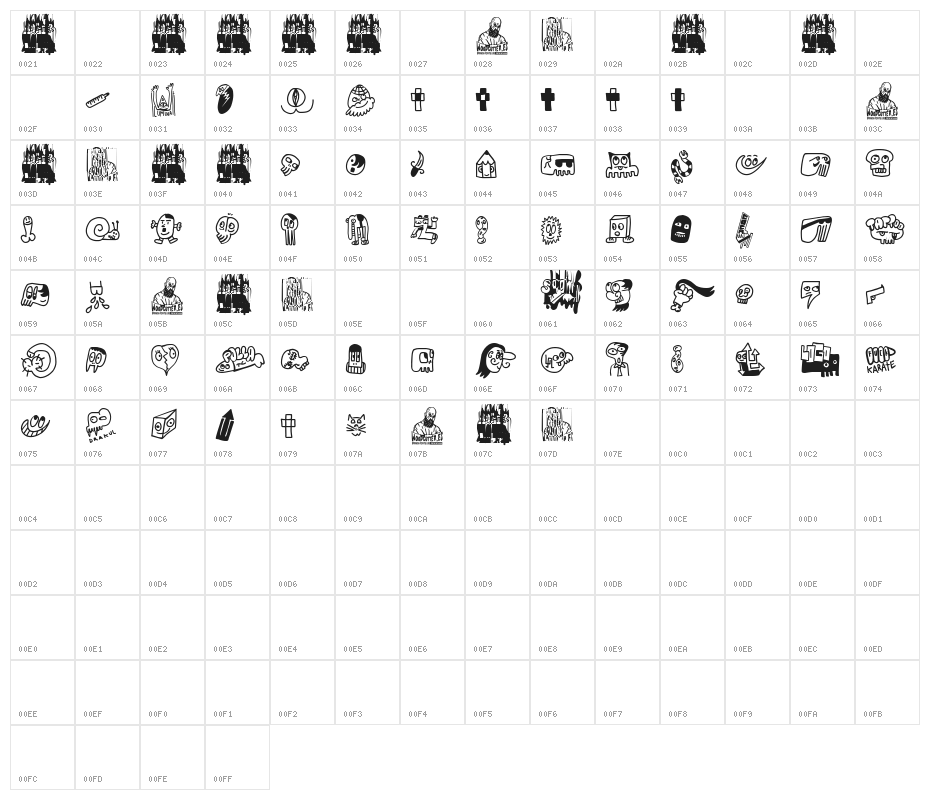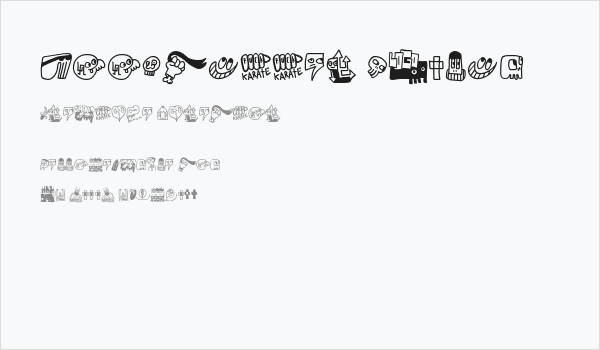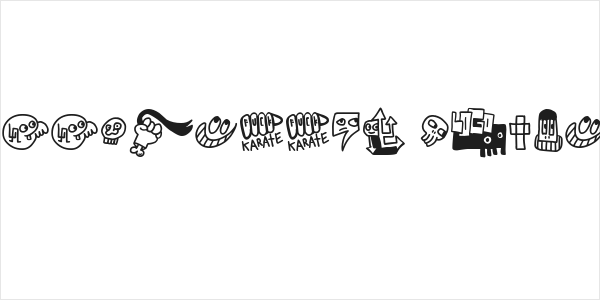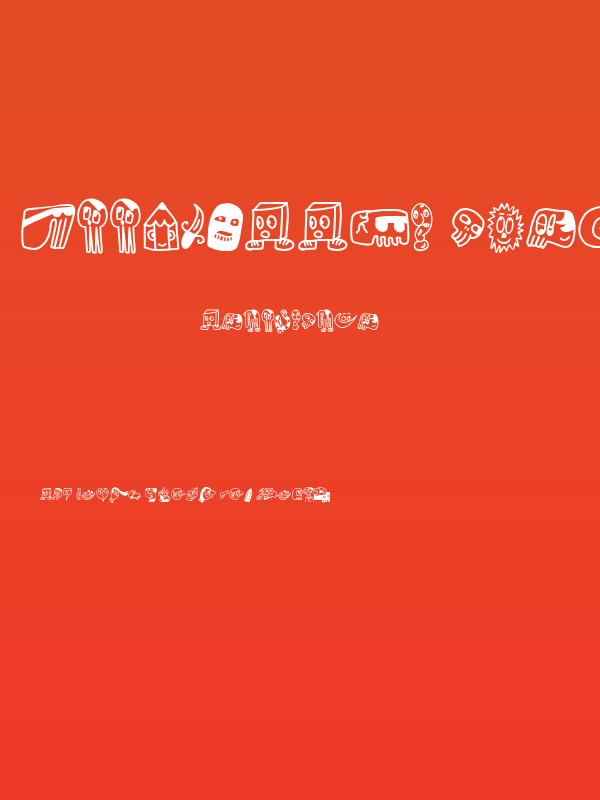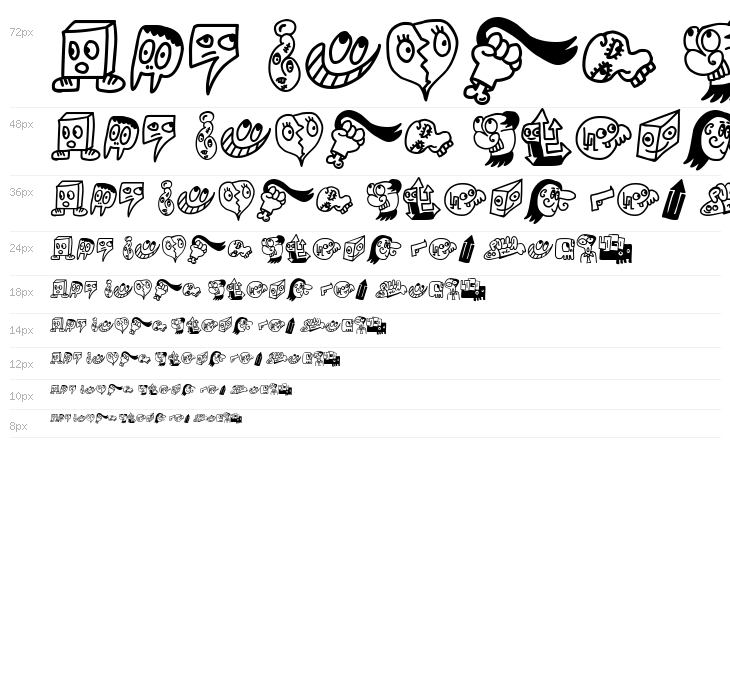
Woodcutter Asylum Font
Woodcutter Asylum Description
Highly illustrative and whimsical dingbat font featuring hand-drawn, cartoonish characters, objects, and abstract shapes with bold, uneven strokes and playful, chaotic energy.
| Overall Style | Decorative, Whimsical, Playful, Artistic |
| Use Case | Logos, Posters, Album covers, Art projects, Comics |
| Proposed Projects | Posters, album covers, zines, comics, alternative event flyers, creative branding, childrenΓ’β¬β’s media, and art projects. |